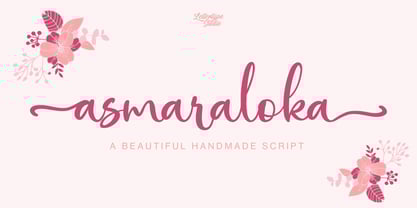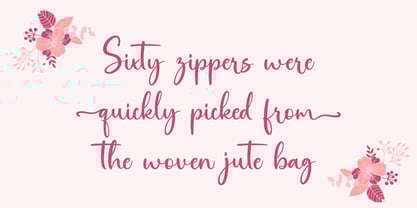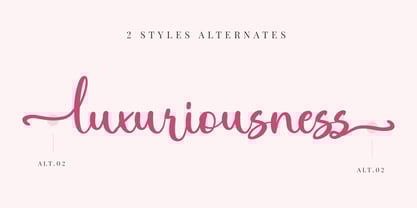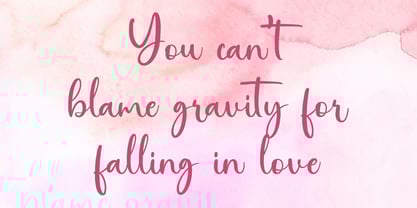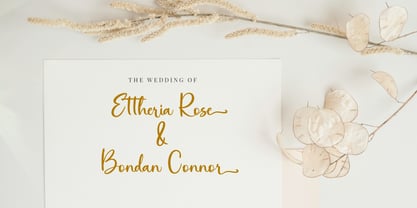
Asmaraloka
by Lettertype Studio
The Asmaraloka Font Family was designed by Diki Pradipta Tri Atmojo and published by Lettertype Studio. Asmaraloka contains 1 styles. More about this family
We are introducing Asmaraloka. A beautiful font handmade script! This font is perfect for projects with feminine & girly themes! You can play with the ligatures and stylistic alternate to create your own customized lettering. Add it to your most creative ideas and notice how it makes them come alive!
Designers: Diki Pradipta Tri Atmojo
Foundry: Lettertype Studio